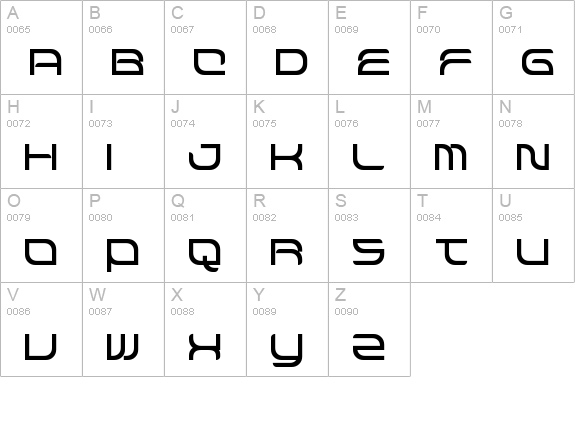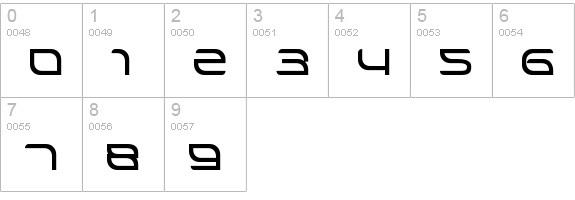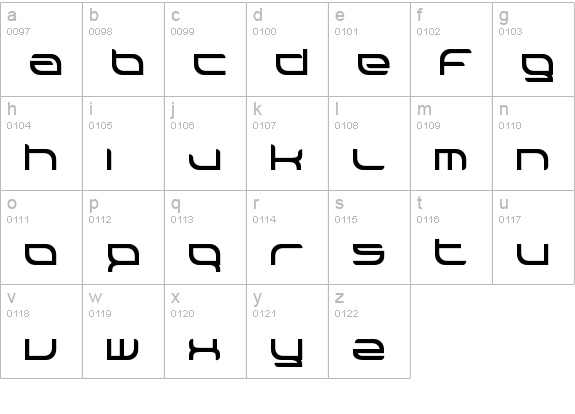
Hyperion Alp Font Details
Hyperion Alp font is a stunning display typeface that exudes elegance and sophistication. With its sleek lines and unique design, this font is perfect for creating eye-catching titles, headlines, and logos. The sharp angles and modern aesthetic of Hyperion Alp make it a versatile choice for a variety of design projects, from branding to editorial design. What sets Hyperion Alp apart is not just its striking appearance, but also the fact that it is completely free to download. You can easily access this high-quality font at FontsMarket.com, where you can add it to your collection without any cost. Whether you're a professional designer looking for a fresh typeface to elevate your work, or a hobbyist seeking a stylish font for personal projects, Hyperion Alp is a fantastic choice that won't break the bank. Don't miss out on the opportunity to enhance your designs with the modern and sophisticated Hyperion Alp font, available for free download at FontsMarket.com. Elevate your typography game and make a statement with this versatile and visually appealing typeface today.